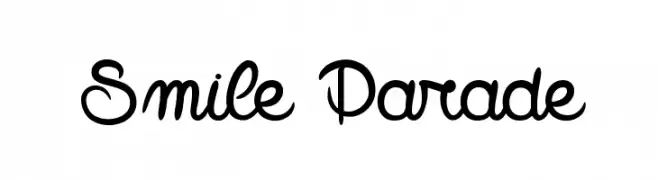
( Fonts by Dieter Schumacher )
A bold, rounded geometric font with a modern and playful style.
( Fonts by Dieter Schumacher )
A bold, outlined font with a modern, geometric style.
( Fonts by Maniackers Design - www.mksd.jp OFF SITE )
A bold, playful font with organic, fluid shapes and high contrast.
( Fonts by Maniackers Design - www.mksd.jp OFF SITE )
A bold, playful font with a bubbly, cartoonish style and high contrast strokes.
( Fonts by Des Gomez )
A playful, hand-drawn font with tall, narrow characters and a whimsical style.
( Fonts by www.dcoxy.com )
A playful, handwritten font with smooth curves and a lively, energetic feel.
A playful, whimsical script font with interconnected letters and a casual feel.
( Fonts by Ainsley Pozsik )
A playful, handwritten font with a casual and friendly vibe.
( imagex - www.imagex-fonts.com )
A bold, decorative font with textured fills and thick outlines, perfect for dynamic displays.